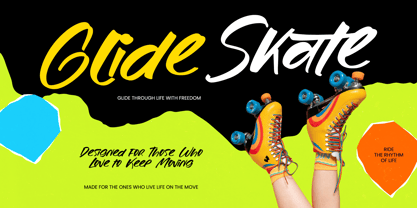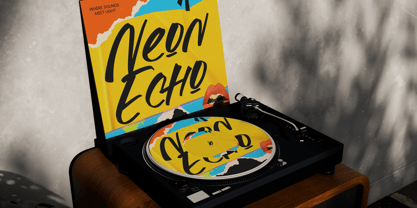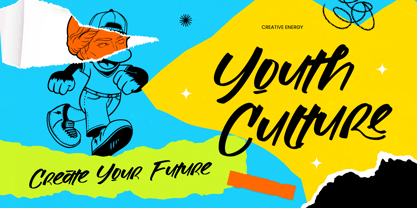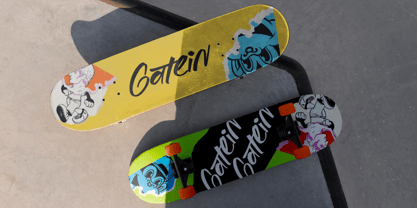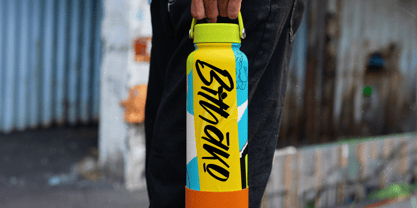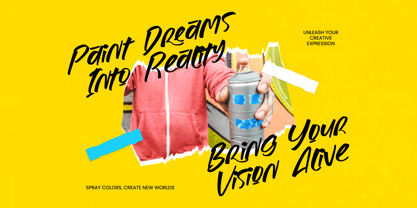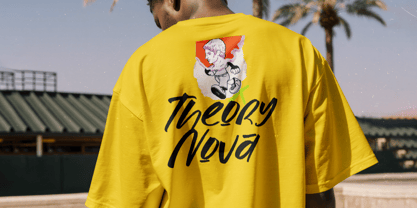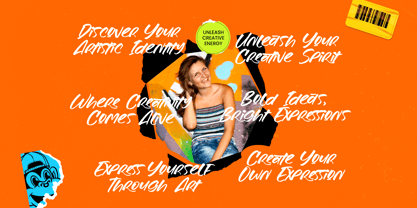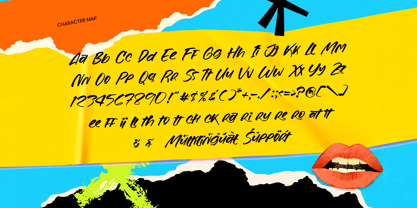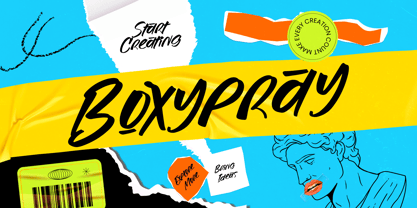
Boxypray
par Stylishtype Studio
La famille de polices Boxypray a été conçue par Heru Utama Putra et publiée par Stylishtype Studio. Boxypray contient 2 styles et options de package familial. En savoir plus sur cette famille
Boxypray is a raw, high-energy typeface that captures the essence of street-level creativity. This font brings a punchy, authentic handwritten vibe to any layout that demands immediate attention.
Inspired by urban textures, torn posters, and marker-scrawled graffiti, this font was born from the chaotic beauty of city streets. It reflects the spontaneous motion of a hand-held pen on concrete and paper, creating a unique visual rhythm.